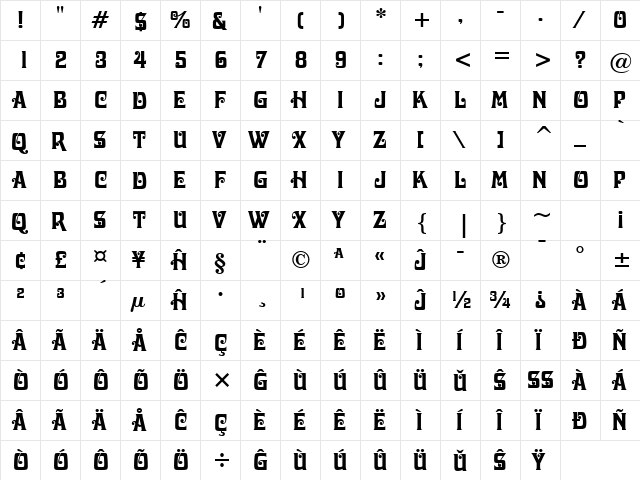
Davida Eo Bold
Design Context for Davida Eo Typeface
Davida Eo is a composed and adaptable typeface that performs quietly and consistently across a wide range of design contexts. The heavy weight commands attention and anchors typographic hierarchies.